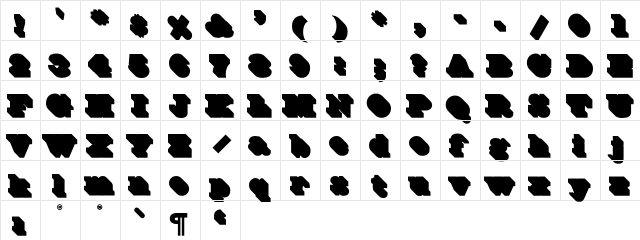
EgizianoClassic ShadowOL
Design Context for EgizianoClassic Typeface
EgizianoClassic has the warm character of retro typography — evoking diners, record sleeves, and the golden age of print advertising.
Font Pairing: Combine EgizianoClassic with a simple slab or neutral sans — period-accurate companions reinforce the vintage feel without competing for attention.
Pro Tip: Use EgizianoClassic for headlines and pull quotes rather than body copy — its personality is best appreciated in short, focused bursts.